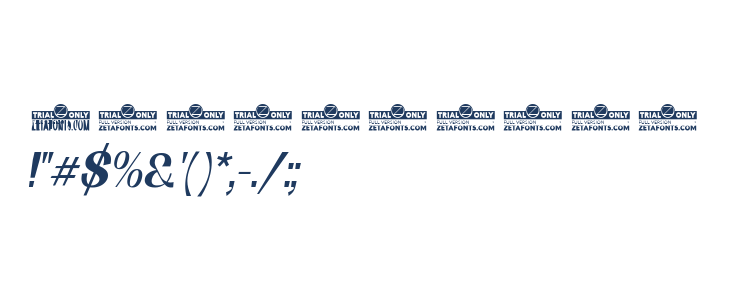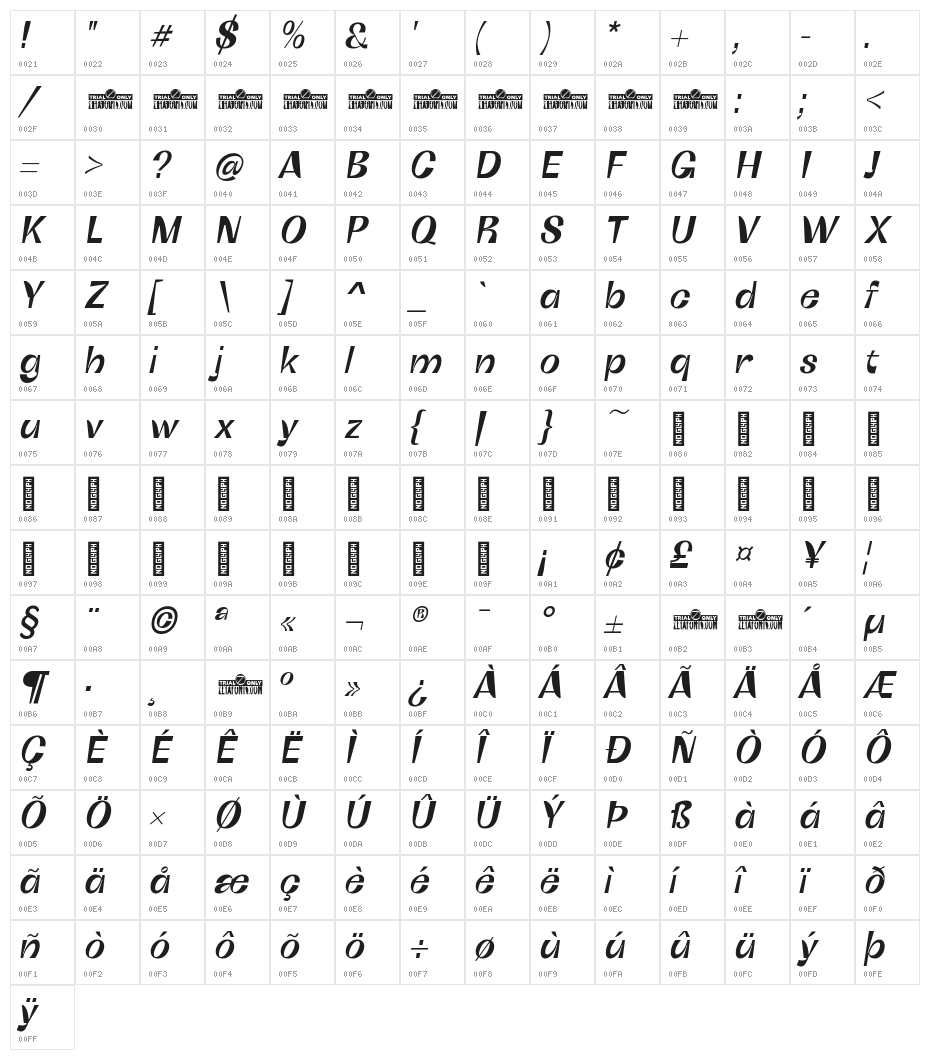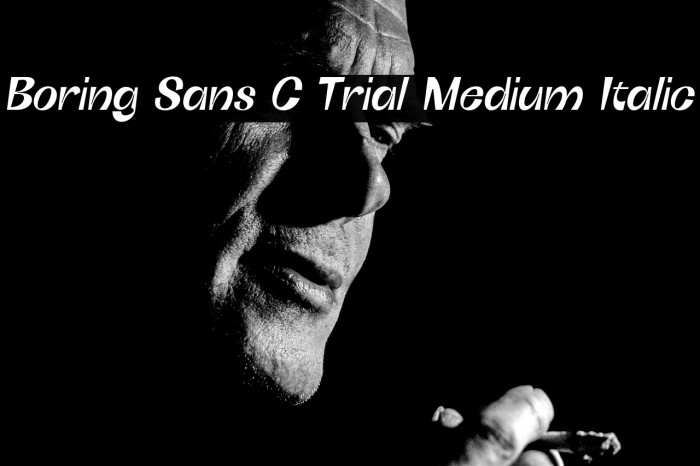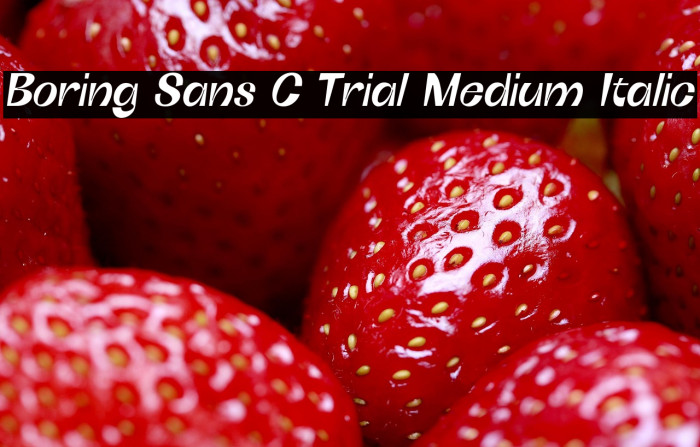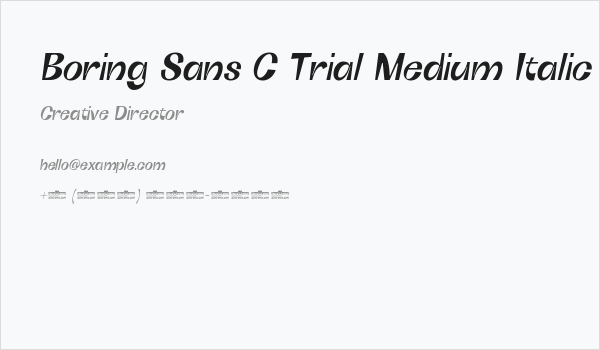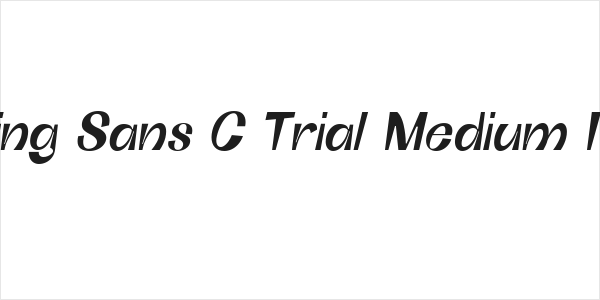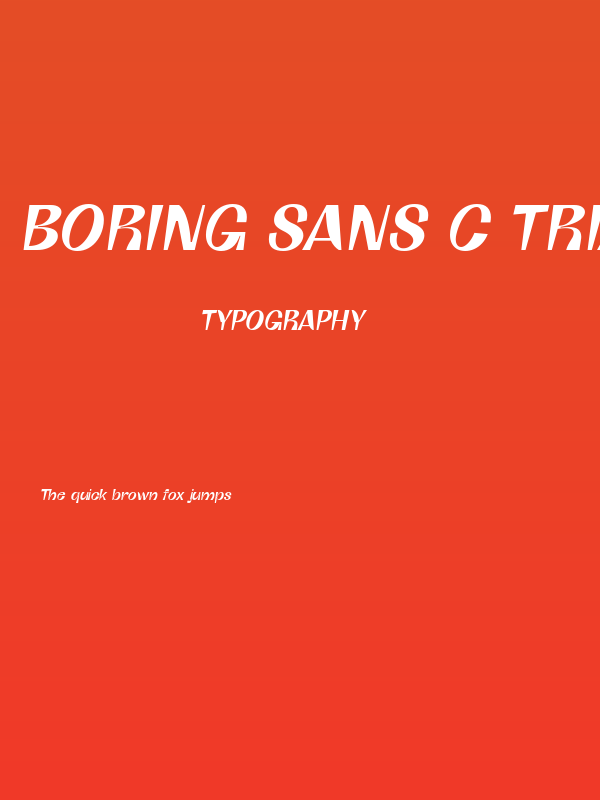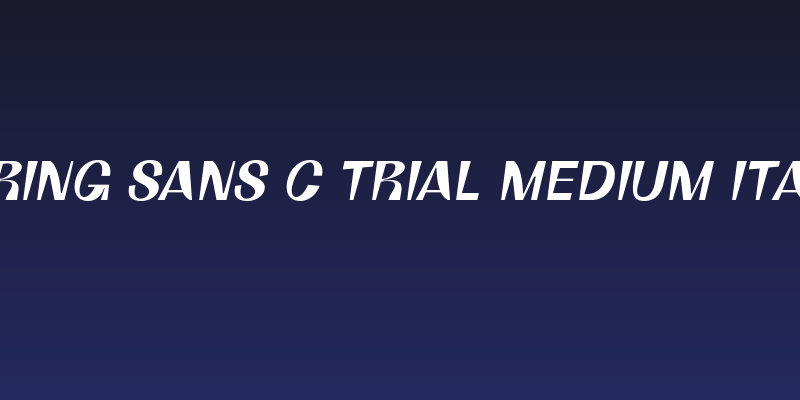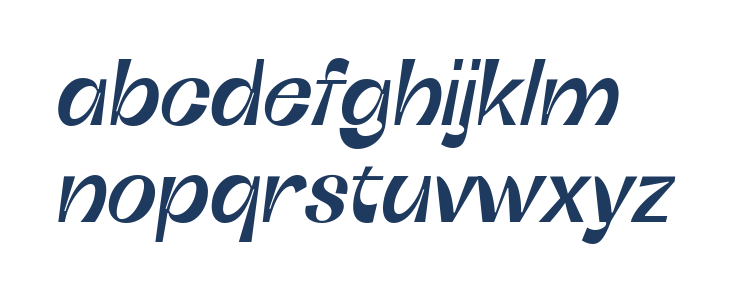
Boring Sans C Trial Medium Italic Font
Boring Sans C Trial Medium Italic Description
This font features a sleek, modern sans-serif design with a medium weight and italic style. The characters are slightly condensed, giving it a compact and efficient appearance. The strokes are smooth and consistent, with a medium contrast that adds a touch of elegance without compromising readability. The italic slant adds a dynamic and forward-moving feel, making it suitable for contemporary and stylish applications. The font includes a full set of uppercase and lowercase letters, numerals, and a variety of special characters, providing versatility for different design needs.